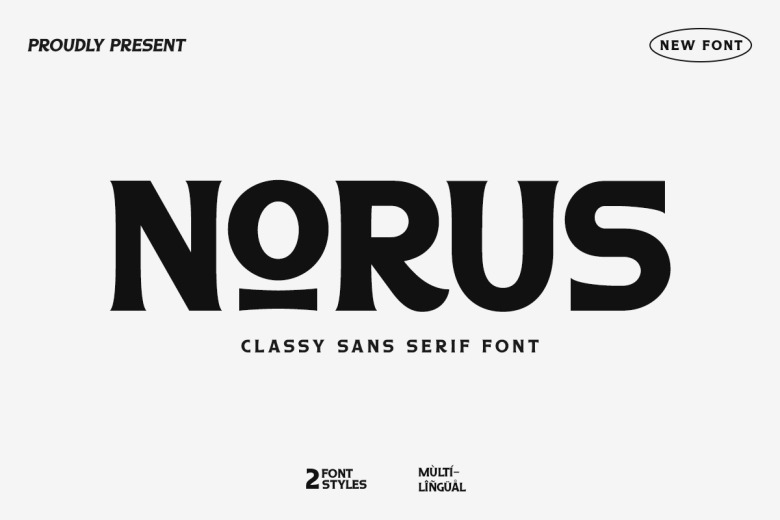
Norus Font
Norus is a cool all-caps serif font. Some of the lowercase letters use underscores. This font is the perfect fit for all of your magazines, posters, movie titles, commercials, t-shirt designs, quotes, logos, and more! If you want your design to look complete, immediately complete your design with this font!
Norus Serif Font